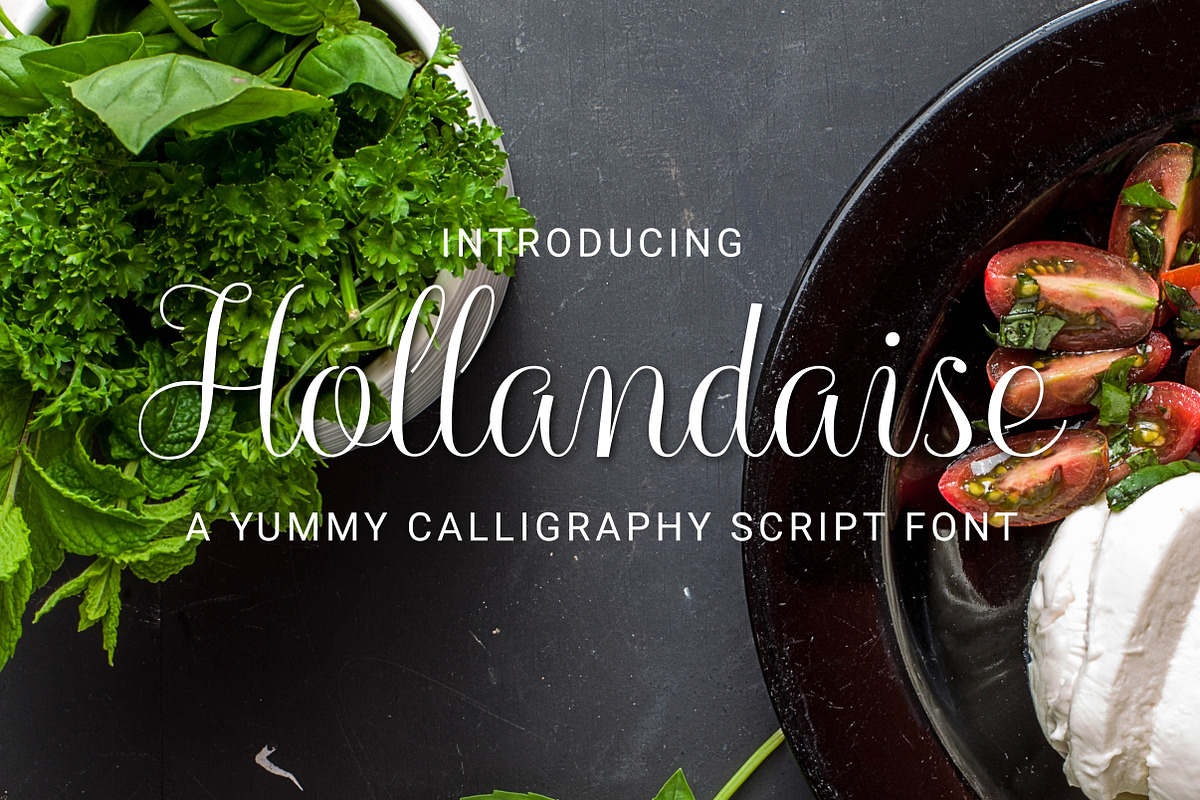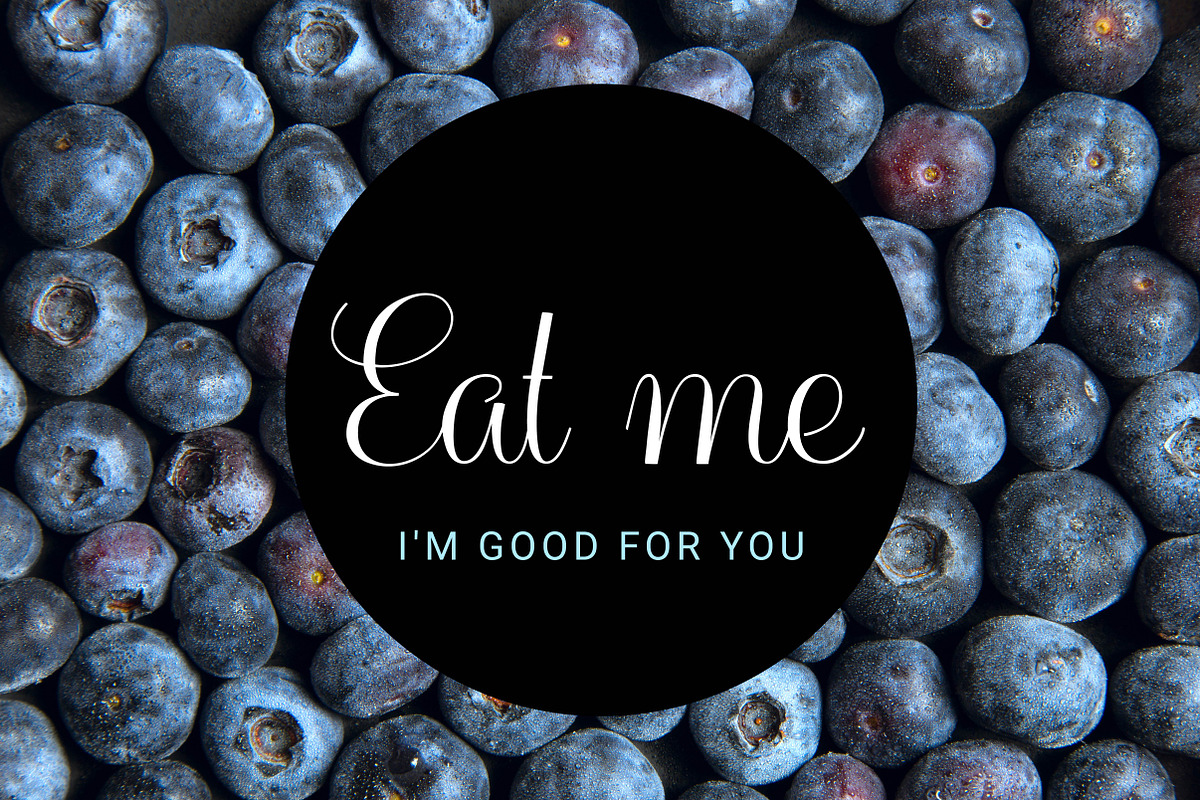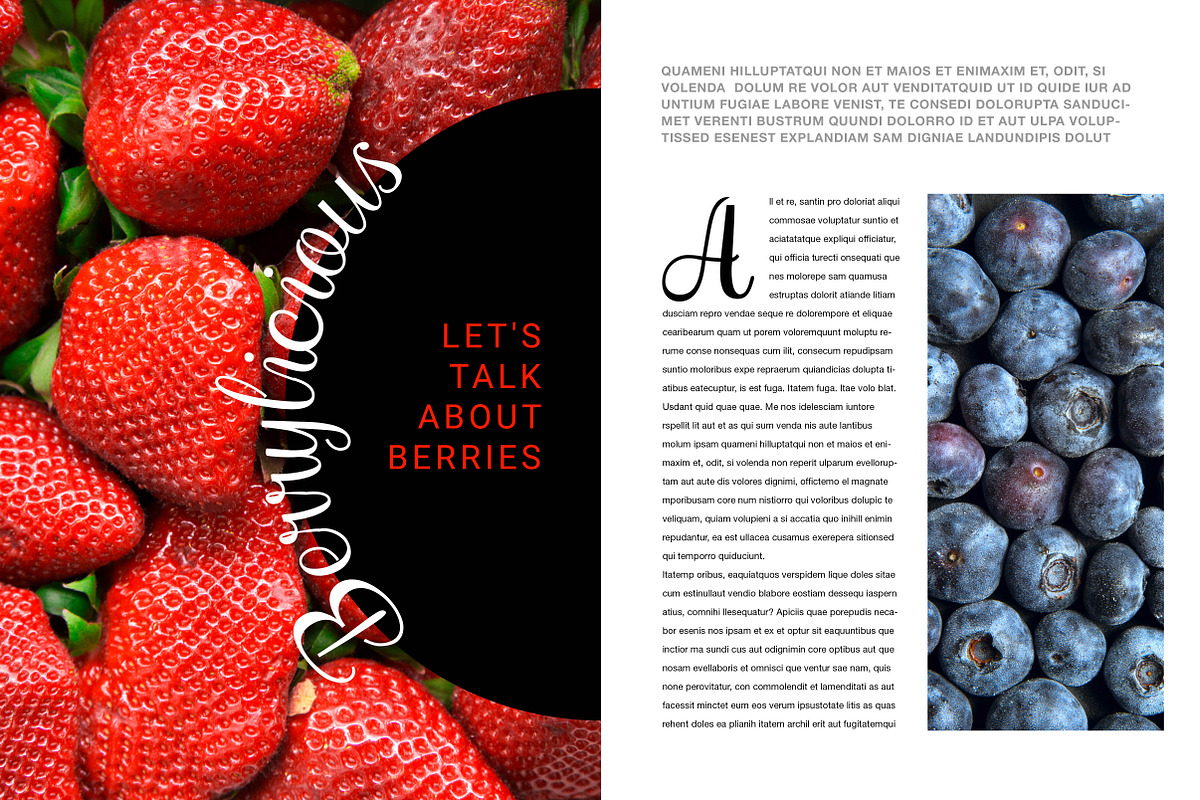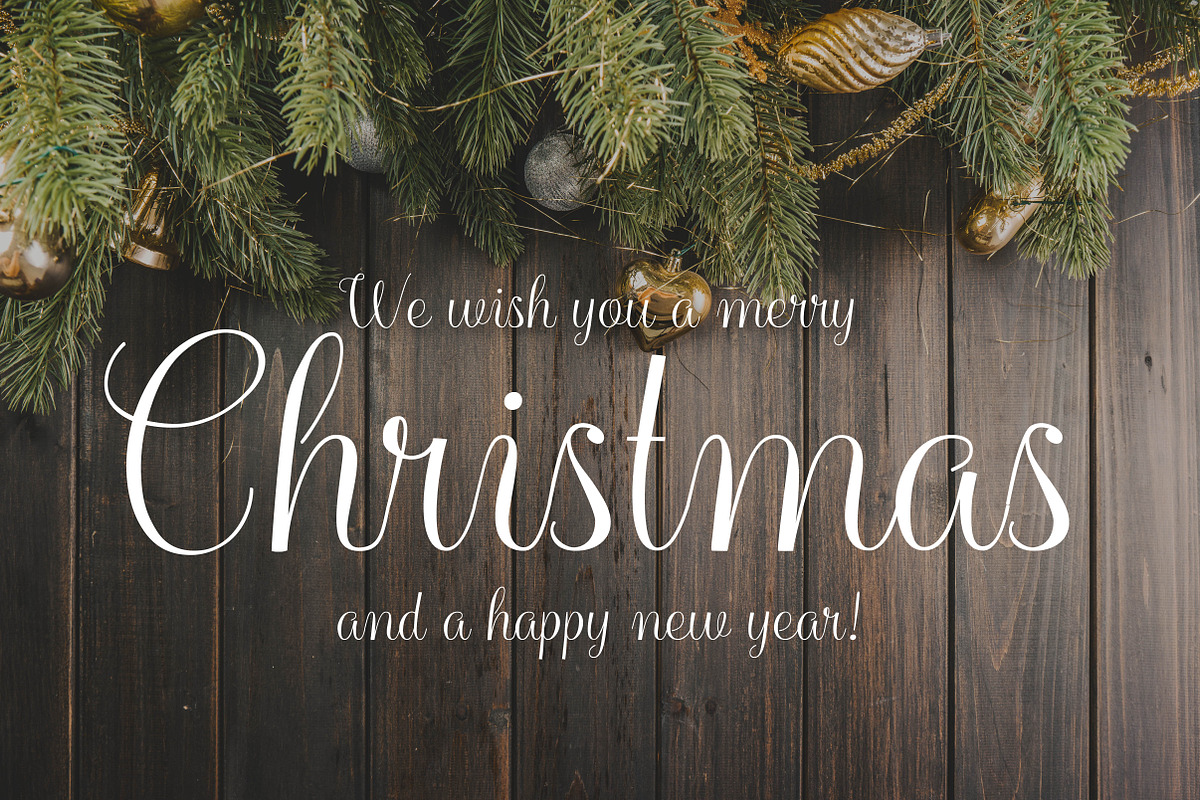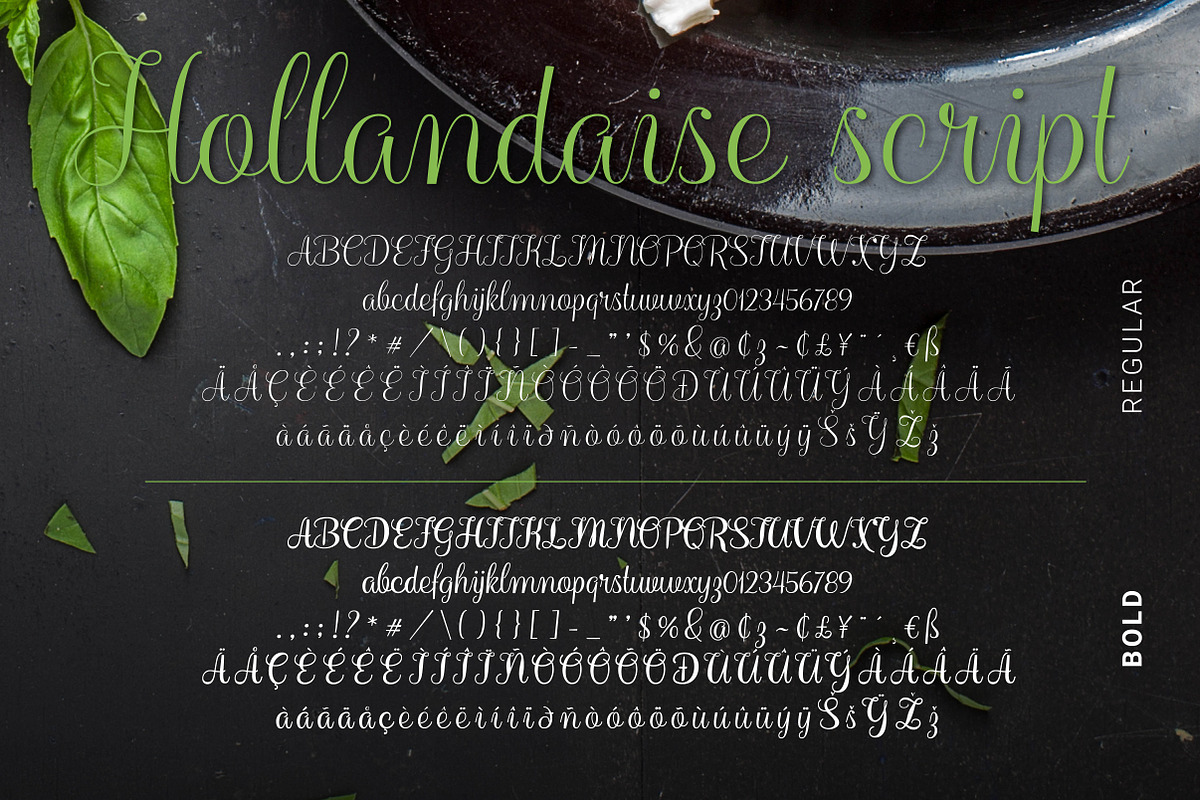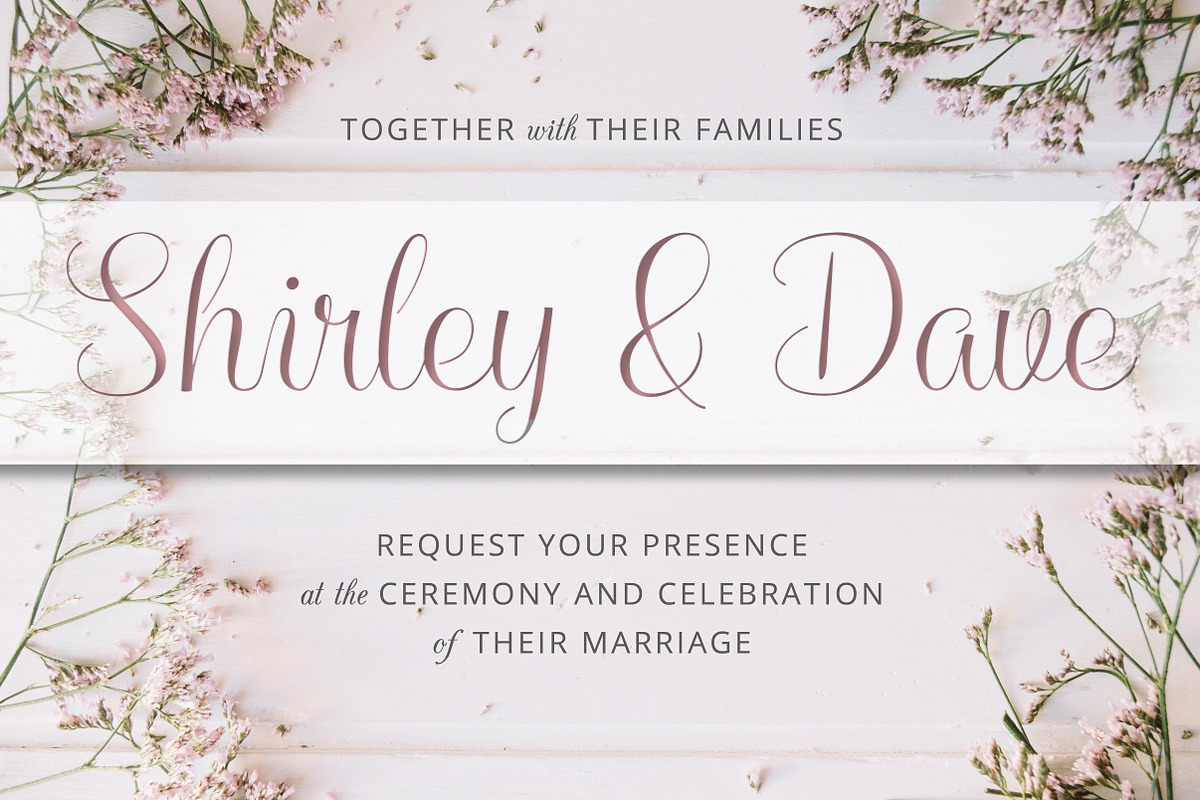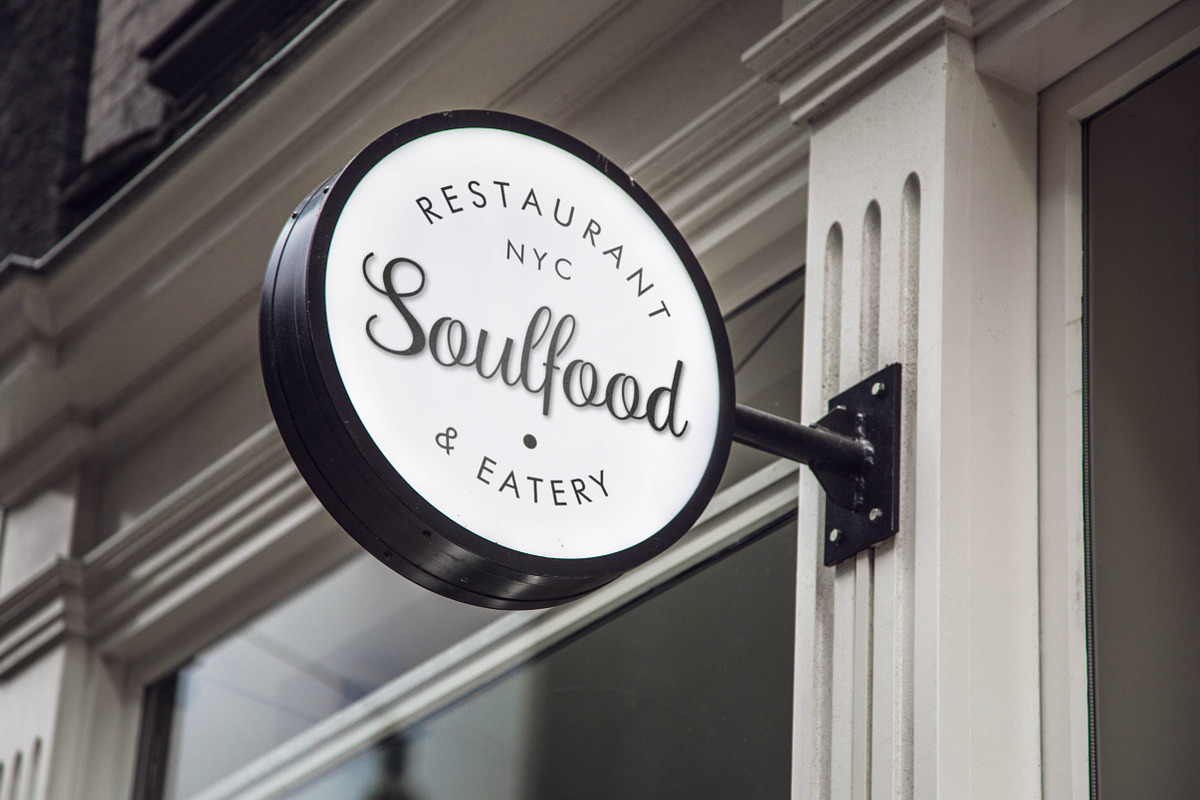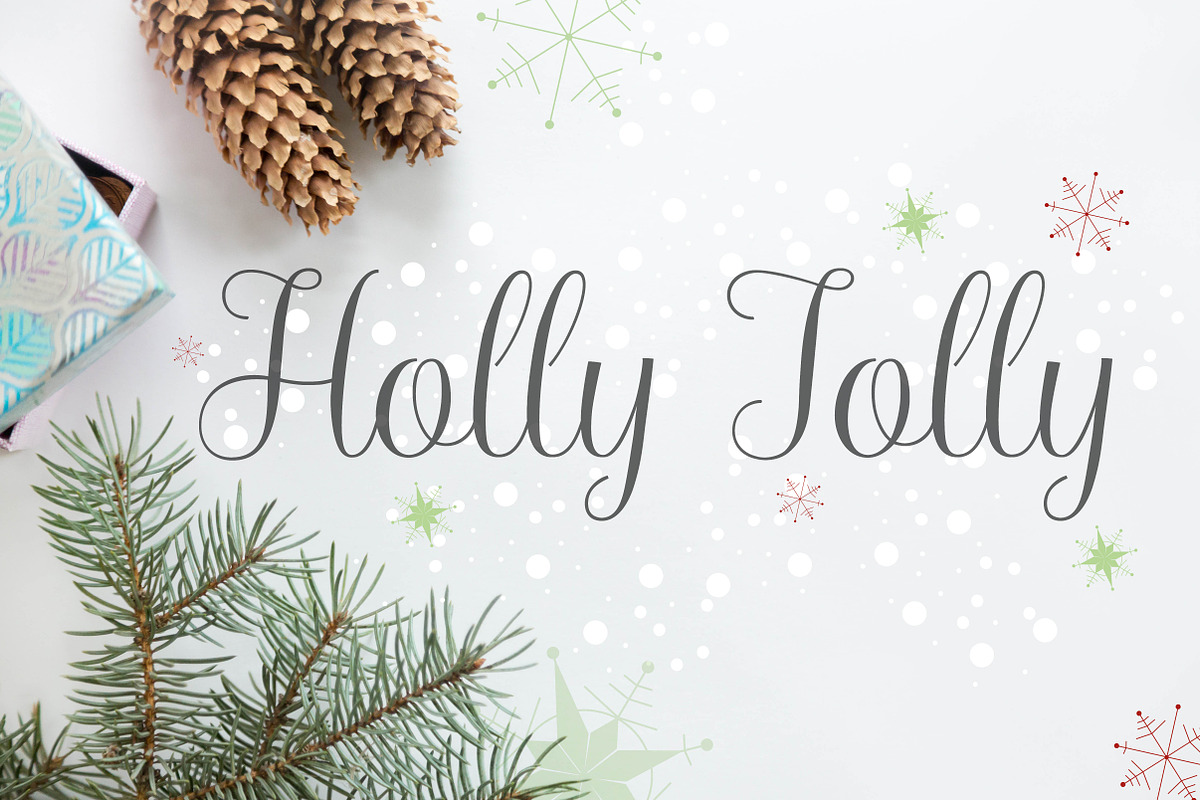
Hollandaise Script Font
Introducing Hollandaise - a calligraphy script font! Inspired by melt in the mouth foodie layouts, this flowing typeface is clean and stylish. Use it to add a touch of finesse to your designs or simply to class up some wedding invitations as well as any corporate elements.